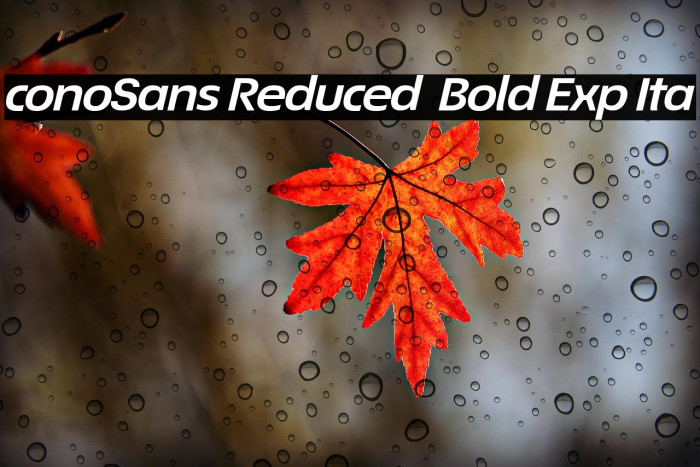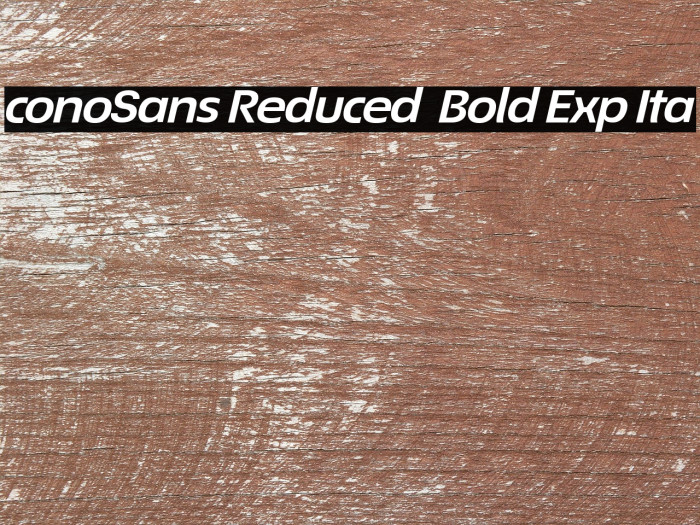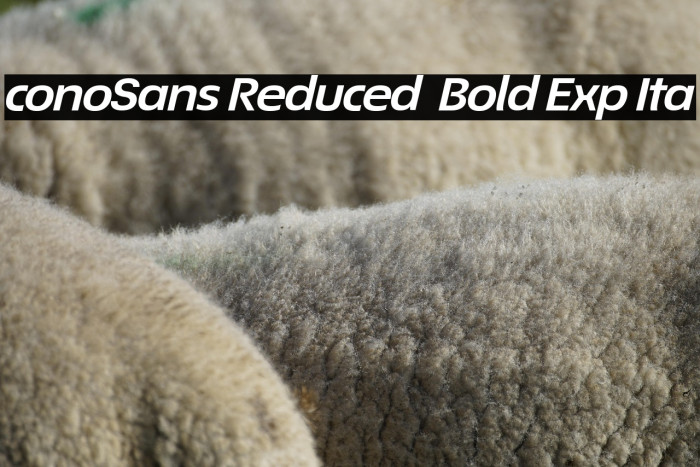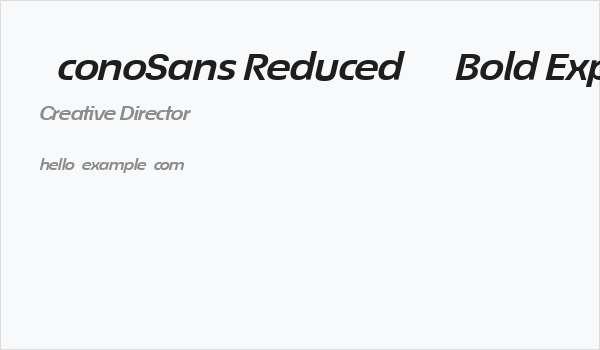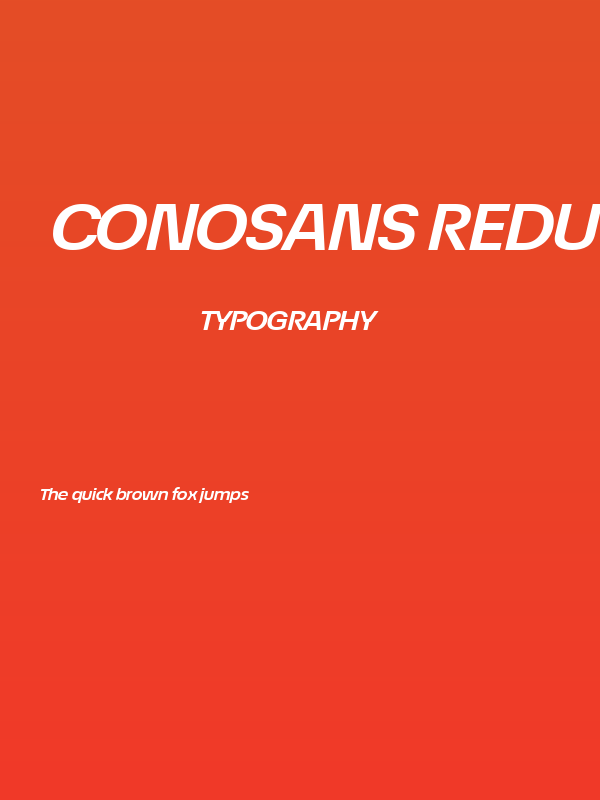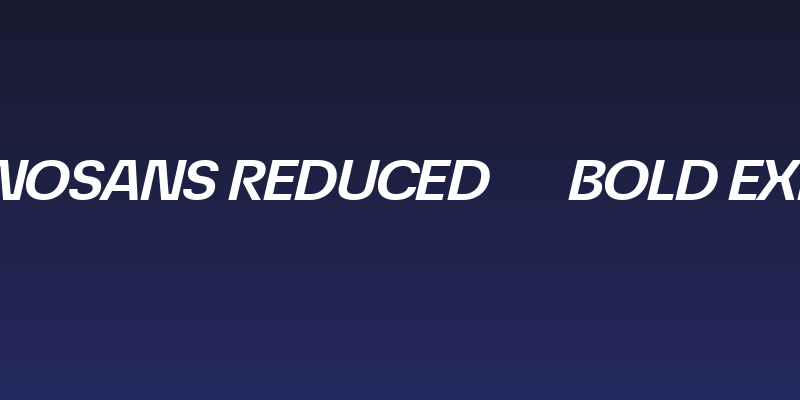
ÉconoSans Reduced 74 Bold Exp Ita Font
ÉconoSans Reduced 74 Bold Exp Ita Description
This typeface features a modern sans-serif design with a bold and expanded appearance. The characters are slightly italicized, adding a dynamic and forward-leaning aspect to the text. The strokes are consistent in weight, providing a uniform and clean look. The spacing between characters is normal, ensuring readability while maintaining a compact form. The font's style is sleek and contemporary, making it suitable for a variety of digital and print applications. Its boldness and expanded width make it particularly effective for headlines and titles, where impact and clarity are essential.
| Use Case | Headlines, Logos, Digital Media |
| Proposed Projects | Ideal for branding, advertising, headlines, and digital media where a modern and impactful look is desired. |